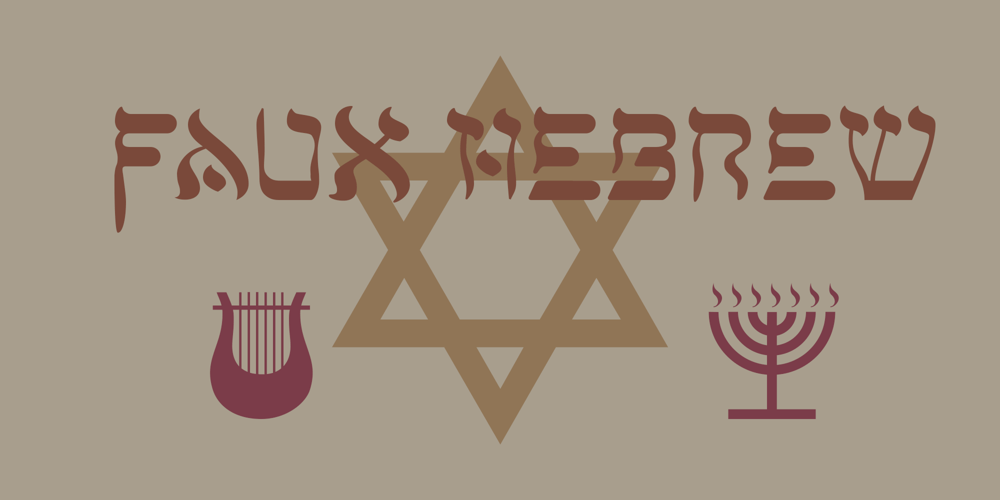
Faux Hebrew
Faux Hebrew font
Faux Hebrew Font Family was designed by Roger Vershen and published by Page Studio Graphics. Faux Hebrew contains 1 styles and family package options. The simulated font is based on the characteristic Hebrew calligraphy. Some of the original Hebrew characters have been given new roles, others modified to resemble modern Latin characters. The font includes an upper case alphabet, numerals, and basic faux punctuation, plus Harp of David, Menorah, and Star of David symbols.